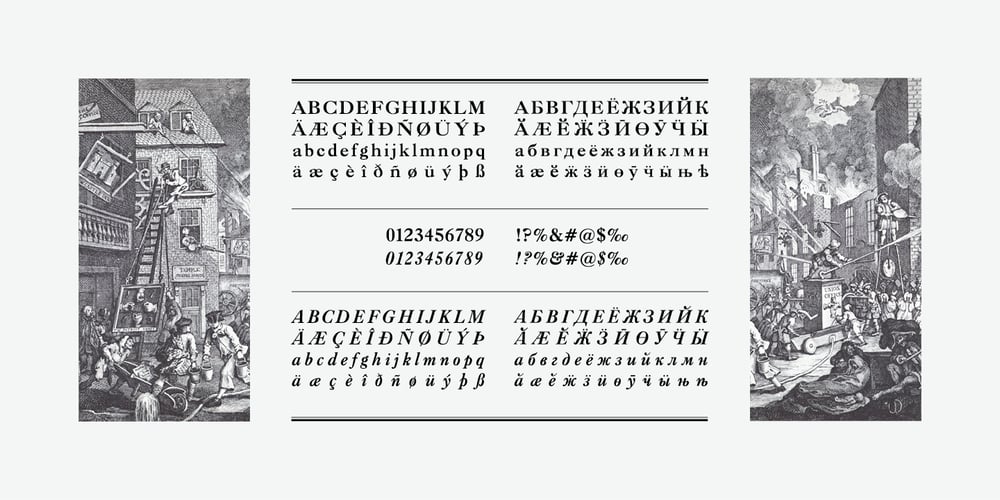
Caslon Bold Font Family was designed by Isay Slutsker and published by ParaType. Caslon Bold contains 2 styles and family package options. Caslon Bold is the Bitstream version of Caslon 3, originally designed by the American Type Founders in 1905. This typeface is based on William Caslon I’s first English Old Style typefaces from 1725. Caslon drew inspiration from late 17th-century Dutch types, but his artistic skills allowed him to enhance those models, introducing a variety of forms and subtle details.The strokes in Caslon Bold are somewhat heavier than in earlier Old Style fonts, with thicker and slightly stubby serifs. The italic letters have an uneven slope, adding character to the typeface. Text set in Caslon Bold remains legible and aesthetically appealing. Even today, Caslon is a favorite font among English printers for setting classical literature.The Cyrillic version of Caslon Bold was developed for Paratype in 2002 by Isay Slutsker and Manvel Shmavonyan.Caslon Bold main characteristics:- 2 styles in total- 560+ glyphs in each style- 12 OpenType features- Extended Latin and Cyrillic supportAnd if you need font files in different formats or want to try this font, just drop us a line at fonts@paratype.net, and we’ll work something out.